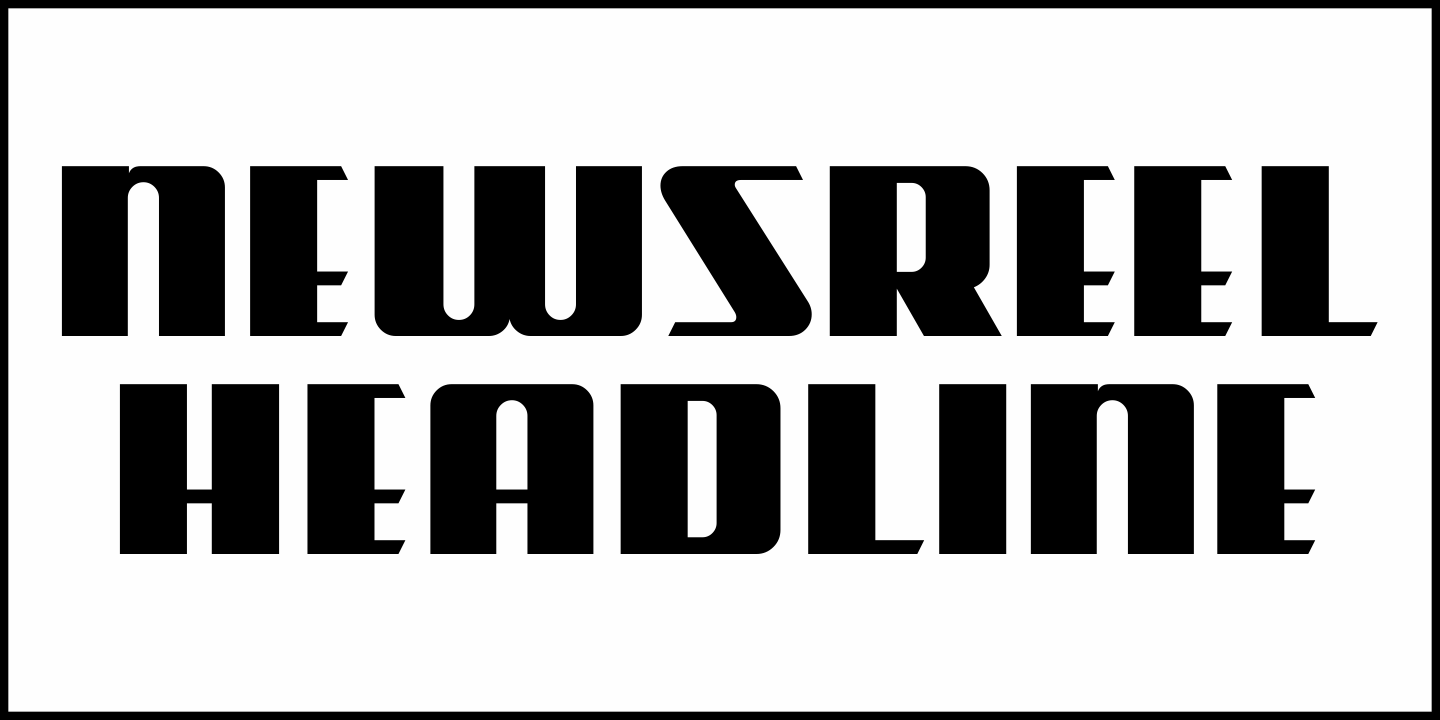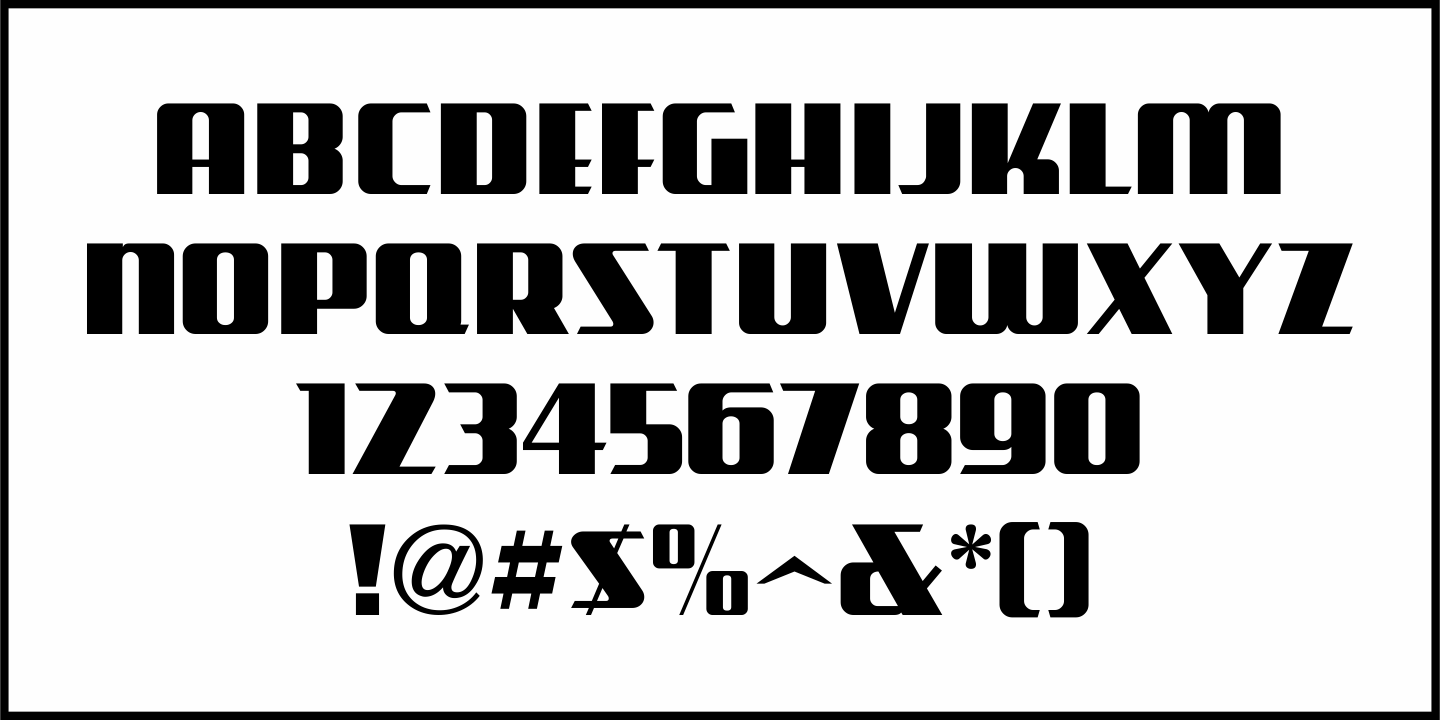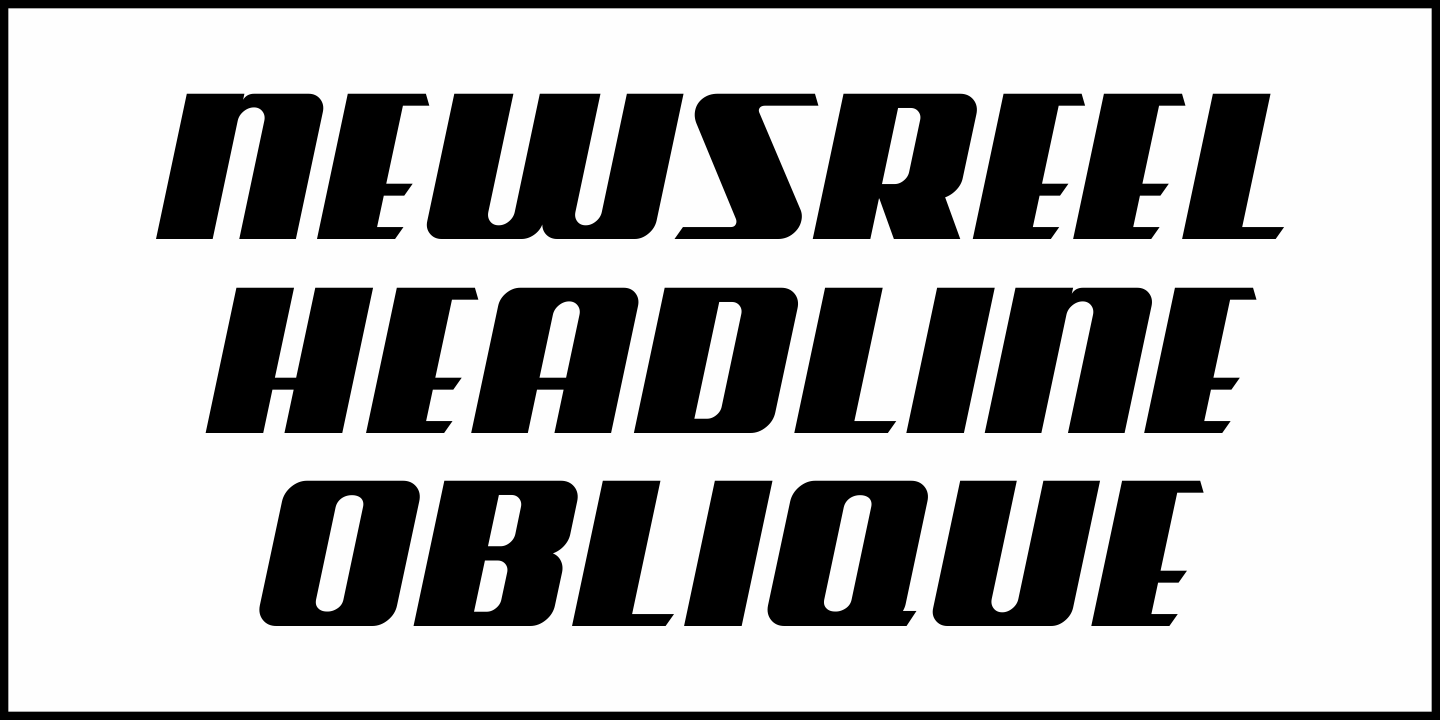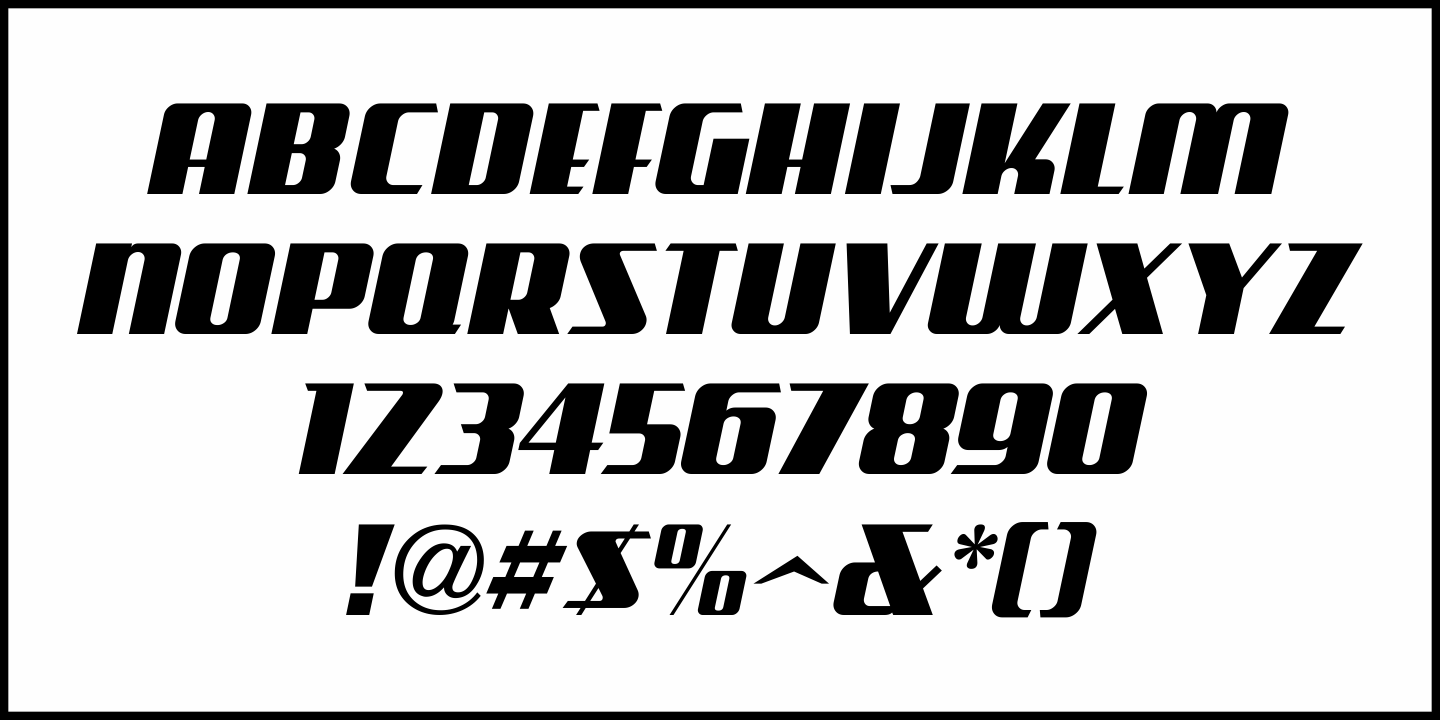
Newsreel Headline
The August 28, 1934 issue of "The Film Daily" carried an ad for Pathé News, one of the major suppliers of newsreels to theaters at the time.
The headline text for the ad was hand lettered in an extra bold Art Deco thick-and-thin style with squared characters and rounded corners.
This is now available as Newsreel Headline JNL in both regular and oblique versions.
Newsreel Headline includes 213 glyphs.